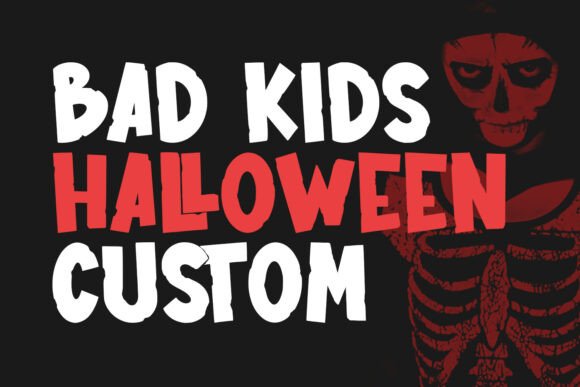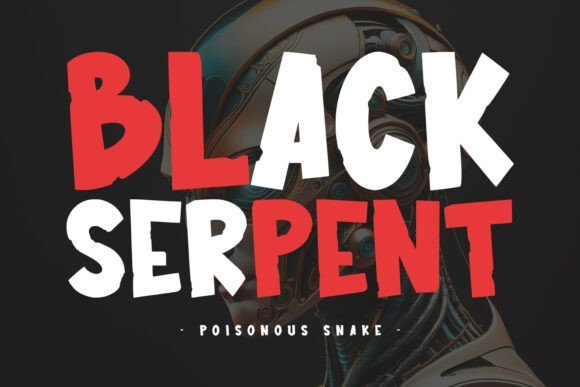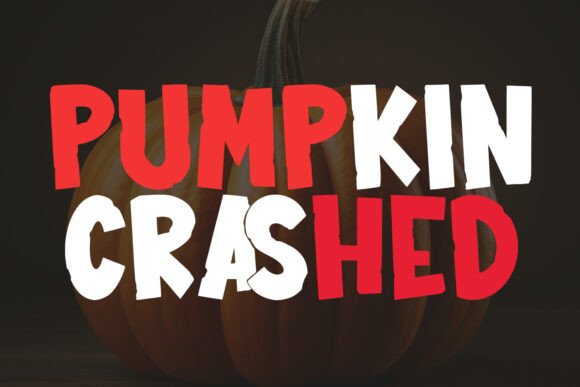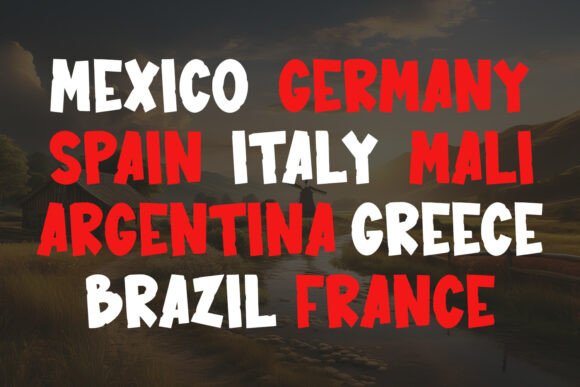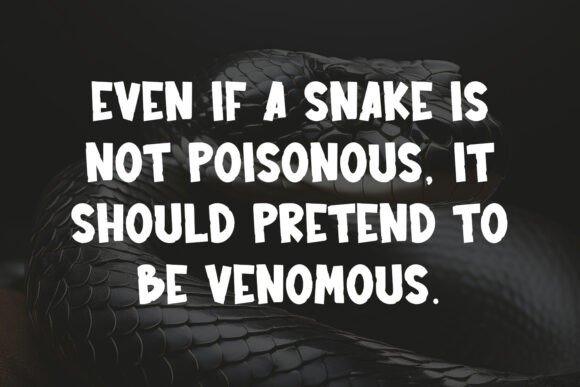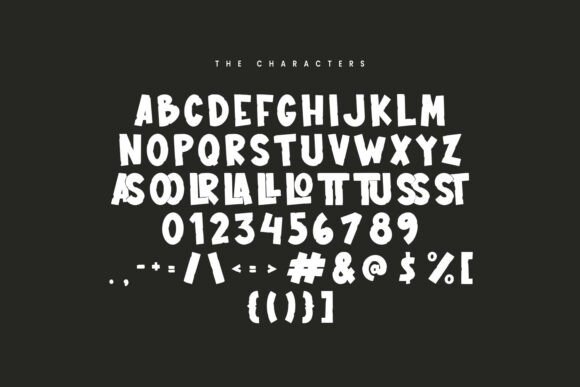
Introduction to Kolkme Alltoss Font
Have you ever stared at a blank canvas, trying to come up with the perfect design to showcase your creativity? It’s that moment of uncertainty, when your mind is racing with ideas, that you need a little magic to spark your imagination. Enter the Kolkme Alltoss Font, an enchanting display font that will transport your designs to a whimsical world of wonder.
This high-quality font is a treasure trove for designers, offering a unique blend of modern sophistication and playful charm. Whether you’re working on a creative project, or simply looking for a design resource to elevate your brand, the Kolkme Alltoss Font is sure to impress. Plus, with a transparent background, you can easily integrate it into any design without worrying about visual clutter.
Key Features of Kolkme Alltoss Font
- High-quality design resource ideal for creative projects, offering a unique and stylish aesthetic.
- Designed with a focus on legibility and clarity, making it suitable for both digital and print applications.
- Unique characteristics include its bold and modern design, making it perfect for adding a touch of sophistication to creative projects.
Honest Review: Kolkme Alltoss Font
I recently came across the Kolkme Alltoss Font, and I must say it’s been a game-changer for my creative projects. This font is a high-quality design resource that can elevate any visual content.
Here are some of the things that I love about the Kolkme Alltoss Font:
- ✨ Versatility: This font is incredibly versatile and can be used for a wide range of creative projects, from logos to brochures.
While the Kolkme Alltoss Font is an excellent resource, there are a few limitations:
- ⚠️ Limited customization options: The font is quite straightforward, and there aren’t many customization options available.
- ⚠️ Not suitable for complex typography: Due to its simplicity, the Kolkme Alltoss Font may not be the best choice for complex typography projects.
Overall, I’m impressed with the Kolkme Alltoss Font, and I would definitely recommend it to designers looking for a high-quality, free font resource. With its versatility, high-resolution, and transparent background, this font is a great addition to any design toolkit.